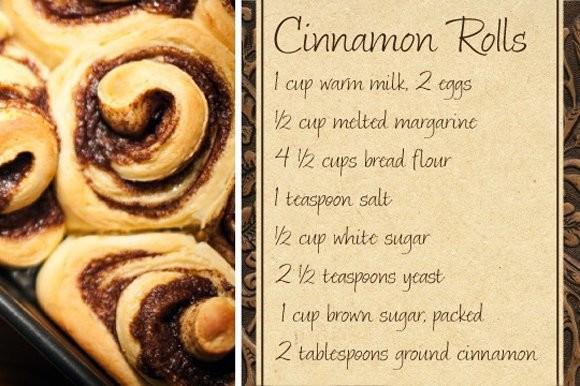
Tiva Font Description
A light ‘n’ breezy casual script face packed with contextual and stylistic alternates, Tiva creates a convincing simulation of confident yet personable handwriting. Use Tiva effortlessly in its default setting, or choose from additional alternates to dress it up for special occasions.